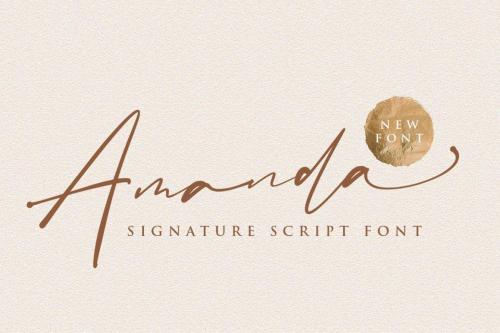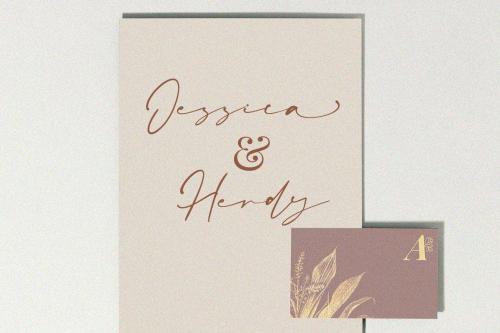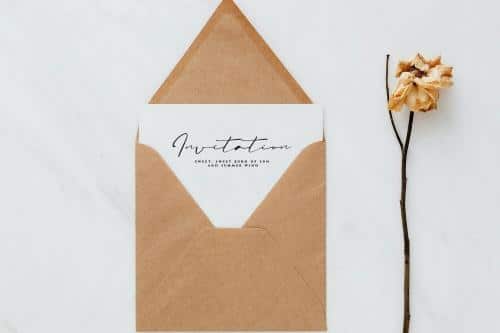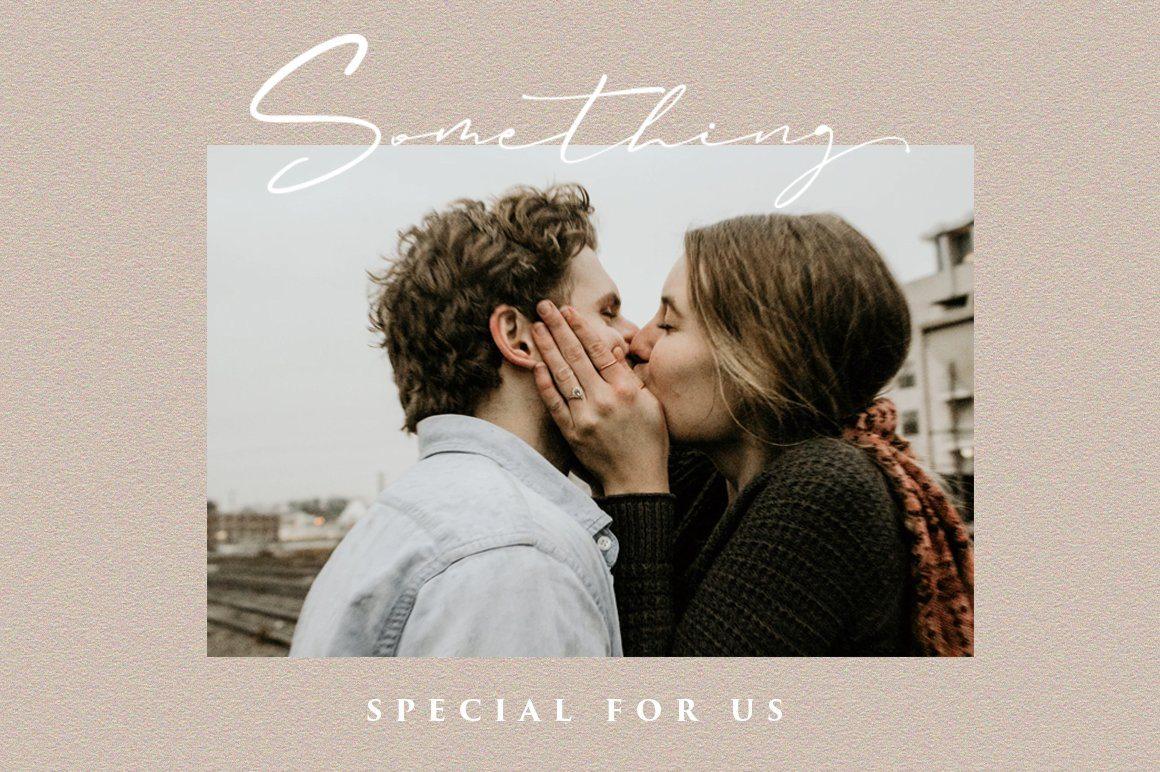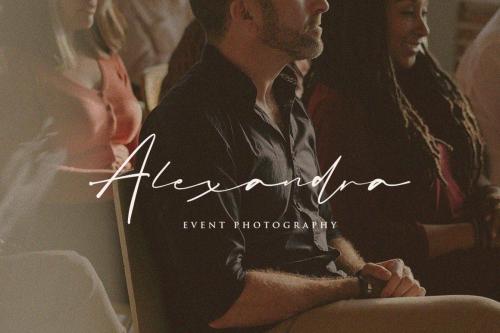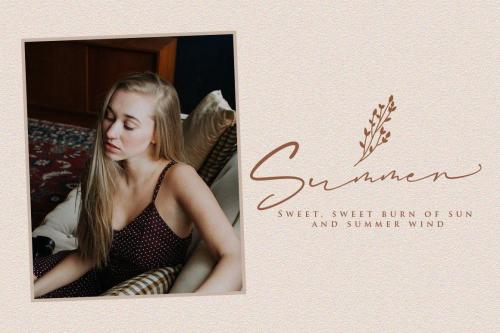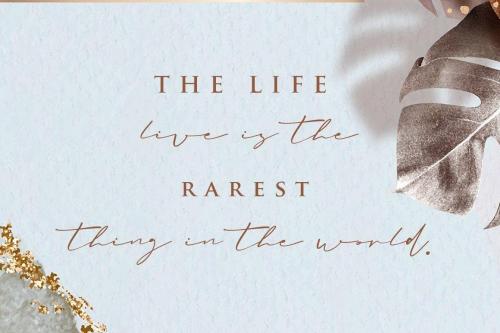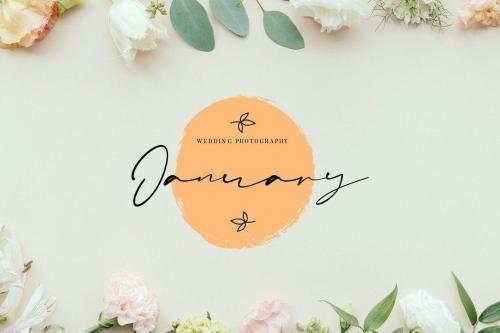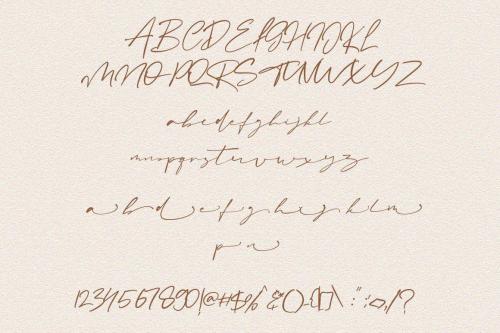
Amanda Signature Script Font
Amanda Signature Font is beautiful script with good flow and unique alternate font. Inspired by a sweet love contemporary handwriting fonts with ligatures and alternative styles ready to add unique look and bloom on your design
As a graphic designer, who worked/works a lot on creating branding, we often are requested to design a logo in Signature style, but with the vibe of real hand lettering. So, this font is an embodiment of this idea. This is perfect for BRANDING. Maybe nothing else, but for BRANDING. You won’t get cute, whimsical, funny logos with this font.
It easily cooperating together For Magazine, Movies, or Book Titles. For Photography, Wedding Invitation, Restaurant Menu or T-shirt Design. For Flyers, Banner Ads, web and printing. From Food and Fashion to a Cosmetics product
• Designer: Vultype